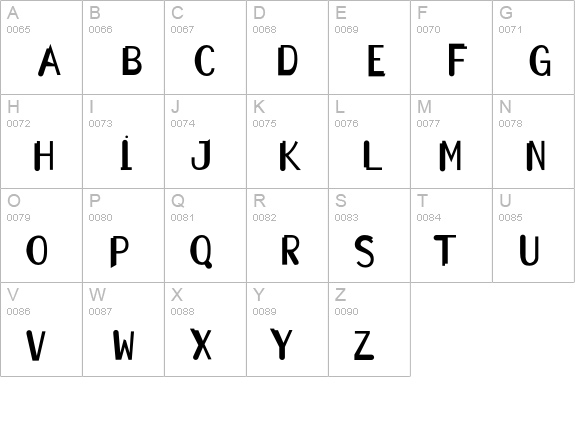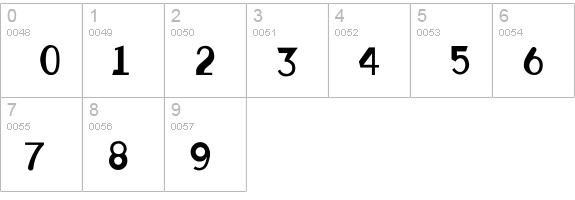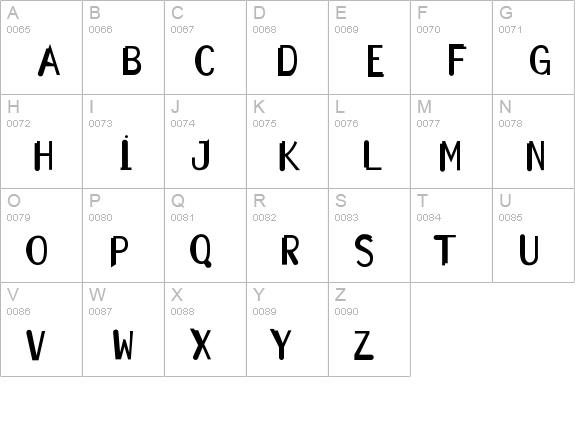
Awkward Font Details
Awkward font is a unique and quirky typeface that adds a touch of playfulness to any design project. With its irregular shapes and uneven lines, this font exudes a sense of charm and individuality. Awkward font is perfect for creating eye-catching headlines, posters, or social media graphics that stand out from the crowd. The best part is that Awkward font is completely free to download at FontsMarket.com. Whether you're a designer looking to add a fun twist to your work or a creative individual in search of a fresh new font for your projects, Awkward font is sure to inspire and delight. Download it today and let your creativity run wild with this charming and whimsical typeface.